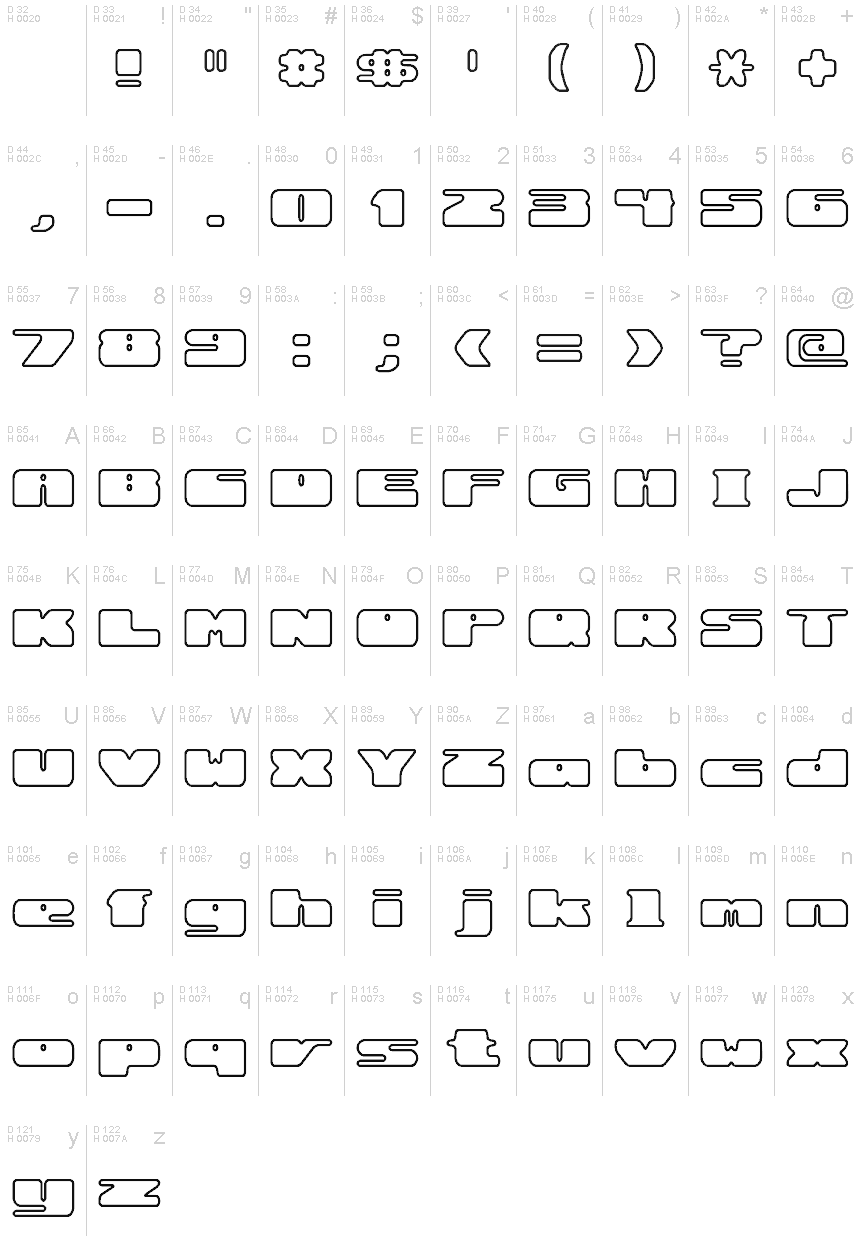
Rotund Outline BRK
Rotund Outline BRK, crafted by ÆNIGMA FONTS, stands as a testament to bold creativity in the realm of display typography. This font boasts an ultra-bold weight paired with an ultra-expanded width, making it a striking choice for projects that demand attention. With its outlined style, Rotund Outline BRK adds a playful yet robust aesthetic that can effectively enhance visual hierarchies and create dynamic compositions.
The circular geometry of the characters lends a sense of friendliness and approachability, while the strong outlines offer excellent legibility even from a distance. The font's distinctive appearance is ideal for headlines, posters, branding, and any creative endeavor where a touch of whimsy is essential without sacrificing impact.
Embrace the unique flair of Rotund Outline BRK to elevate your design projects with its unmistakable charm and commanding presence.